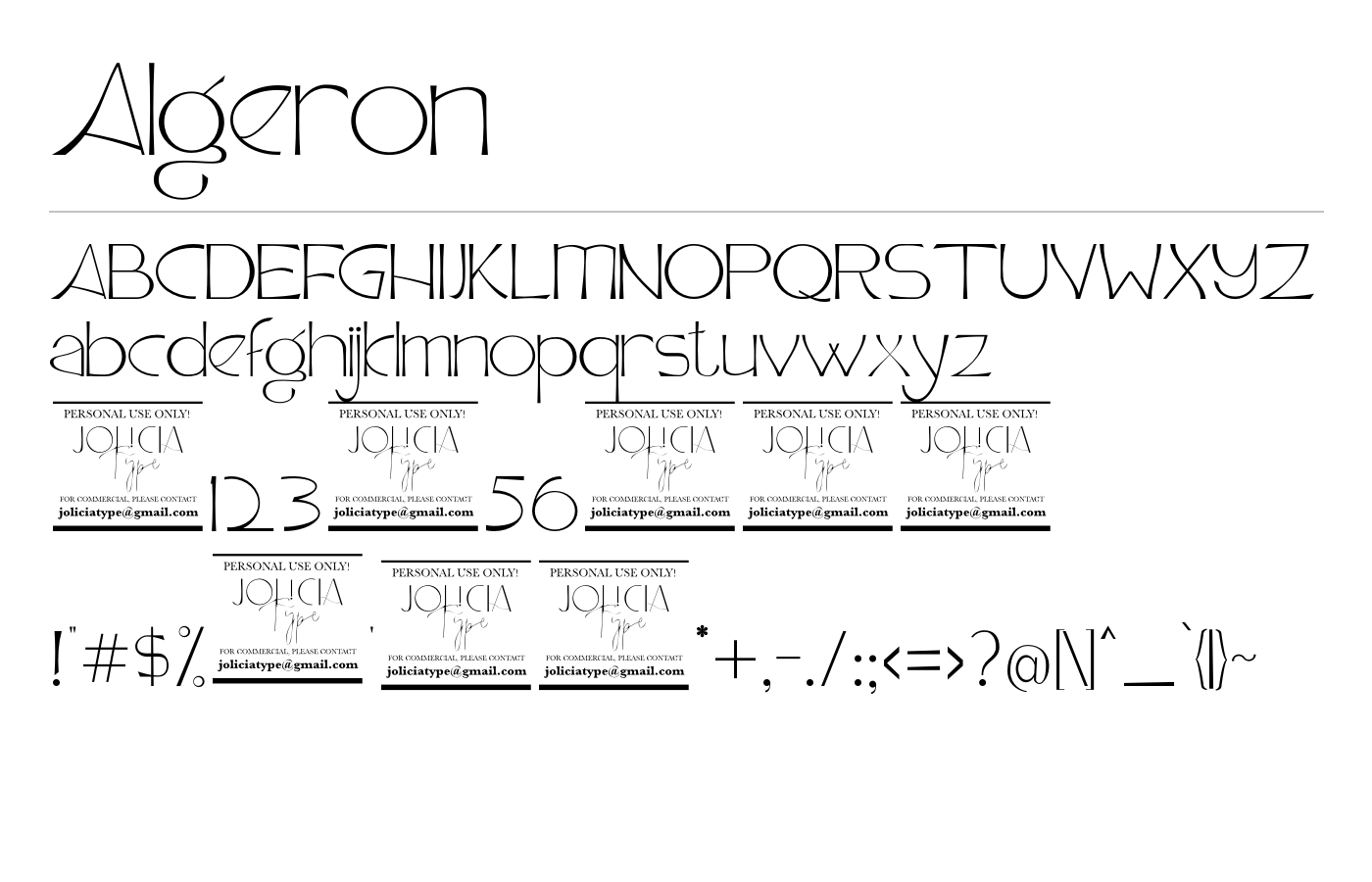
Algeron is a delicate, modern serif font characterized by its tall, slender letterforms and subtle, sharp serifs that create a refined and elegant appearance. Its light weight and high contrast between thin strokes and slightly thicker serifs give it a sophisticated, artistic feel, making it ideal for luxury branding, editorial headlines, and stylish packaging where a unique, graceful impression is desired. This font’s distinctive shapes and airy spacing communicate creativity and finesse, perfect for projects that seek to stand out with a touch of classic yet contemporary flair.
Algeron Font